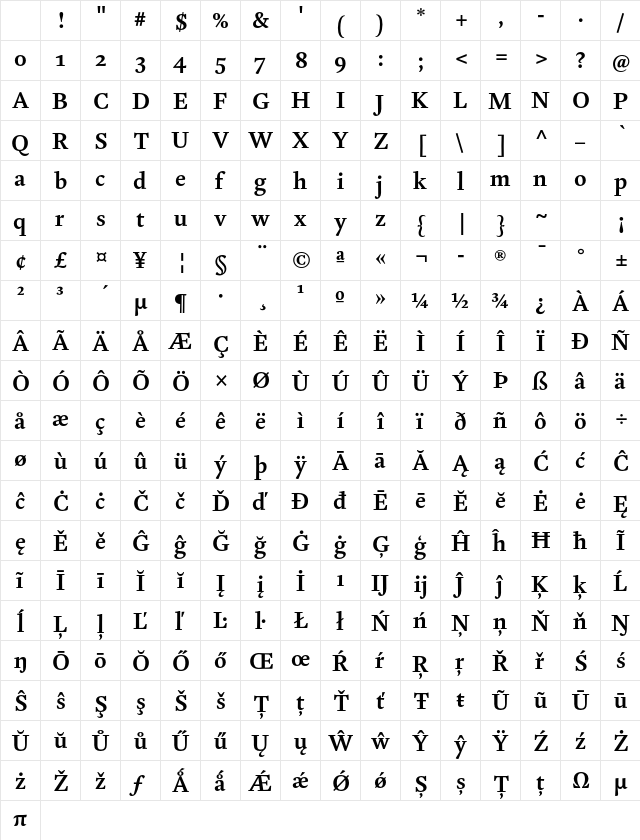
Complete Kingfisher Bold glyph index. Displaying only characters natively supported by Kingfisher Bold font.
Kingfisher is a composed and adaptable typeface that performs quietly and consistently across a wide range of design contexts. Its bold stroke weight gives it real presence on the page.